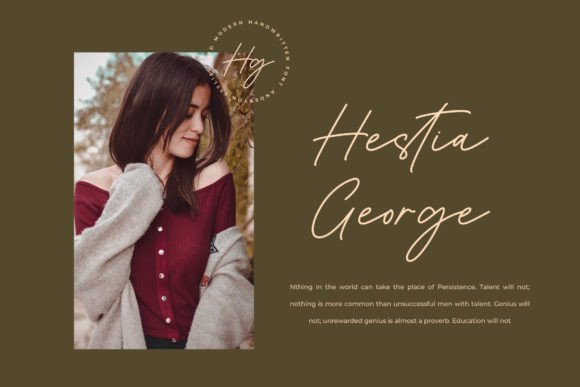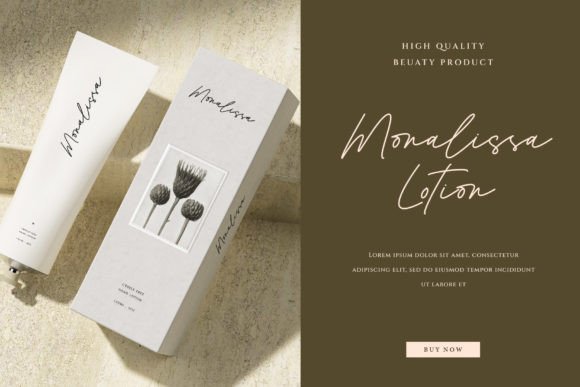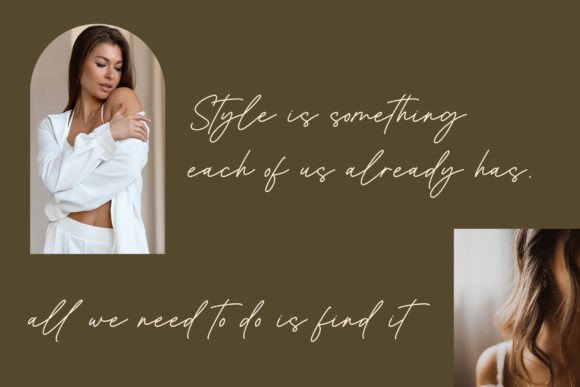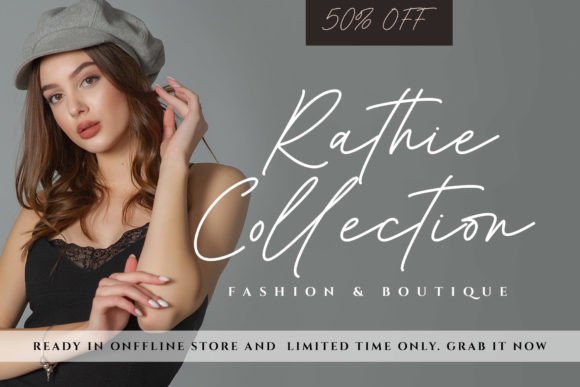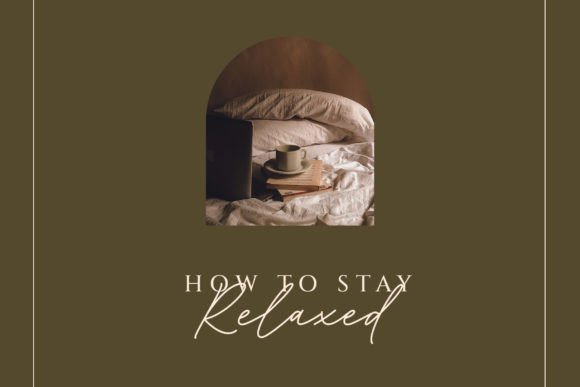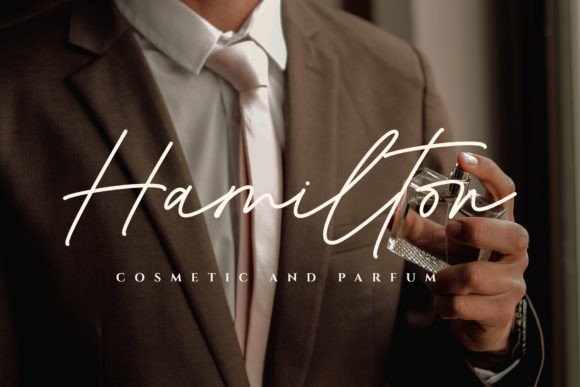
The Perfect Font for Whimsical Creations
Have you ever found yourself rummaging through your stationery stash, searching for the perfect font to match your creative vision? You know, that moment when you stumble upon a font that perfectly captures the essence of your idea, and everything falls into place. For designers and crafty enthusiasts, this moment is a treasure trove of inspiration.
Enter Anderton Font, a delightful handwritten font that embodies the sweetness and delicacy of a well-crafted love letter. With its charming swashes and elegant flair, Anderton Font is the perfect companion for any project that requires a touch of whimsy and romance. Whether you’re designing letterheads, titles, or stationery, Anderton Font is sure to bring your ideas to life.
As a valuable asset for designers, Anderton Font offers a unique blend of sophistication and playfulness, making it an excellent choice for a wide range of creative projects. With its versatility and charm, Anderton Font is sure to become a favorite among designers and crafty enthusiasts alike.
Anderton Font Key Features
- Font Style: Script, Handwritten
- Unique Characteristics: Elegant, luxurious, and sophisticated feel, ideal for formal invitations, certificates, and wedding stationery.
- Languages Supported: Multilingual support, including Latin, Cyrillic, and Greek scripts.
Anderton Font Review
I’ve had the chance to work with the Anderton font, and here’s my honest review.
- Legibility: The Anderton font is highly legible, making it perfect for body text and large blocks of content.
- Character: The font has a distinct, elegant character that’s suitable for upscale designs and publications.
- Comprehensive Character Set: The Anderton font includes a wide range of characters, including Cyrillic and Greek alphabets.
- Weight Limitations: The font only comes in a few weights, which can limit its versatility and flexibility in different design contexts.
- Lack of Italic: Unfortunately, the Anderton font does not include an italic style, which can be a limitation for designers who require a more nuanced approach.
Overall, the Anderton font is a high-quality, elegant font that’s perfect for certain design projects. While it has some limitations, its strengths make it a great choice for designers who need a sophisticated, legible font.
To get the most out of the Anderton font, use it for titles and headings to add a touch of elegance and sophistication.
Pair the Anderton font with a clean and simple font for body text to create a visually appealing contrast.
Use the Anderton font for invitations, business cards, and other formal documents to add a sense of professionalism.
Exploring the Anderton Font
Create a sophisticated wedding invitation using the Anderton Font. This elegant serif font is perfect for a high-end wedding theme.